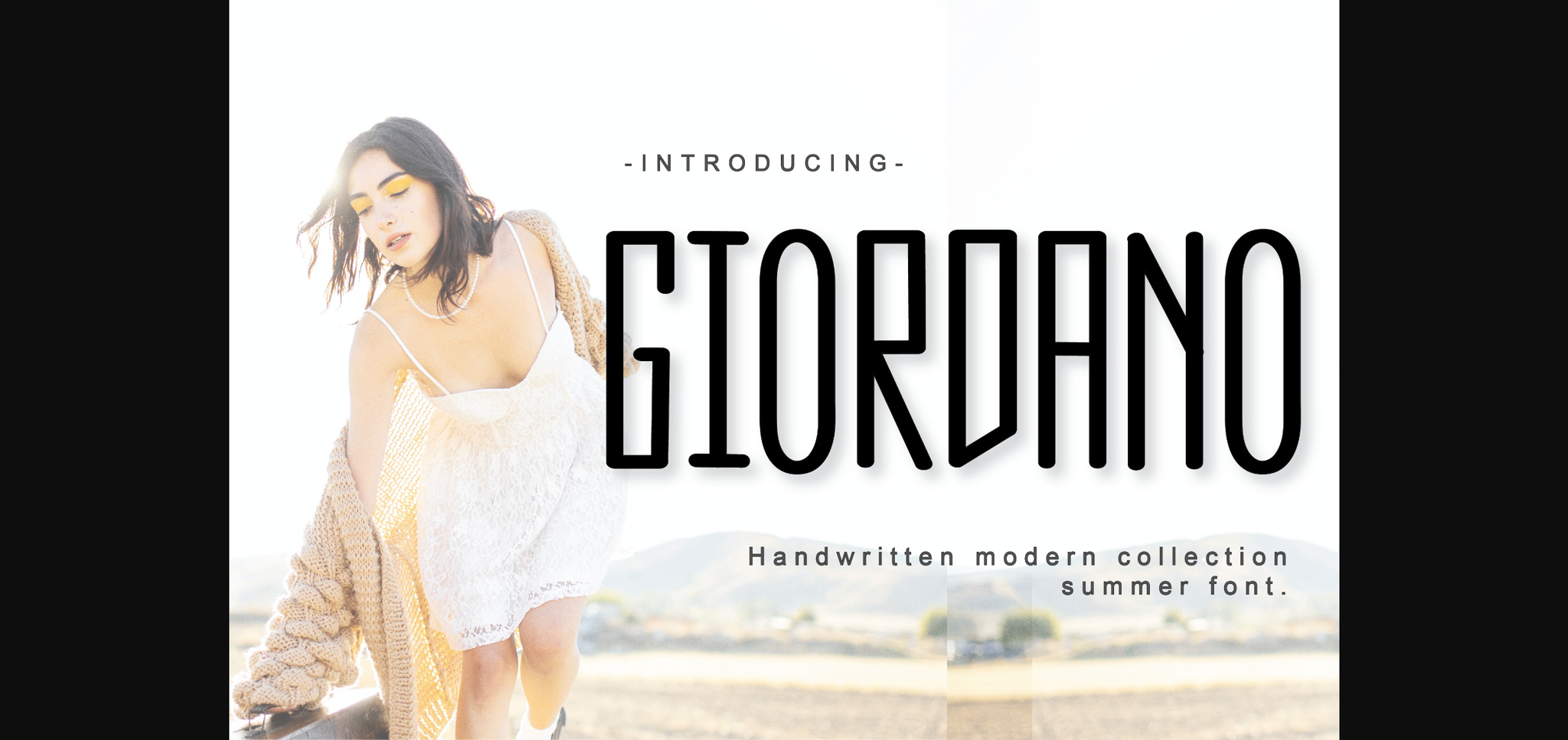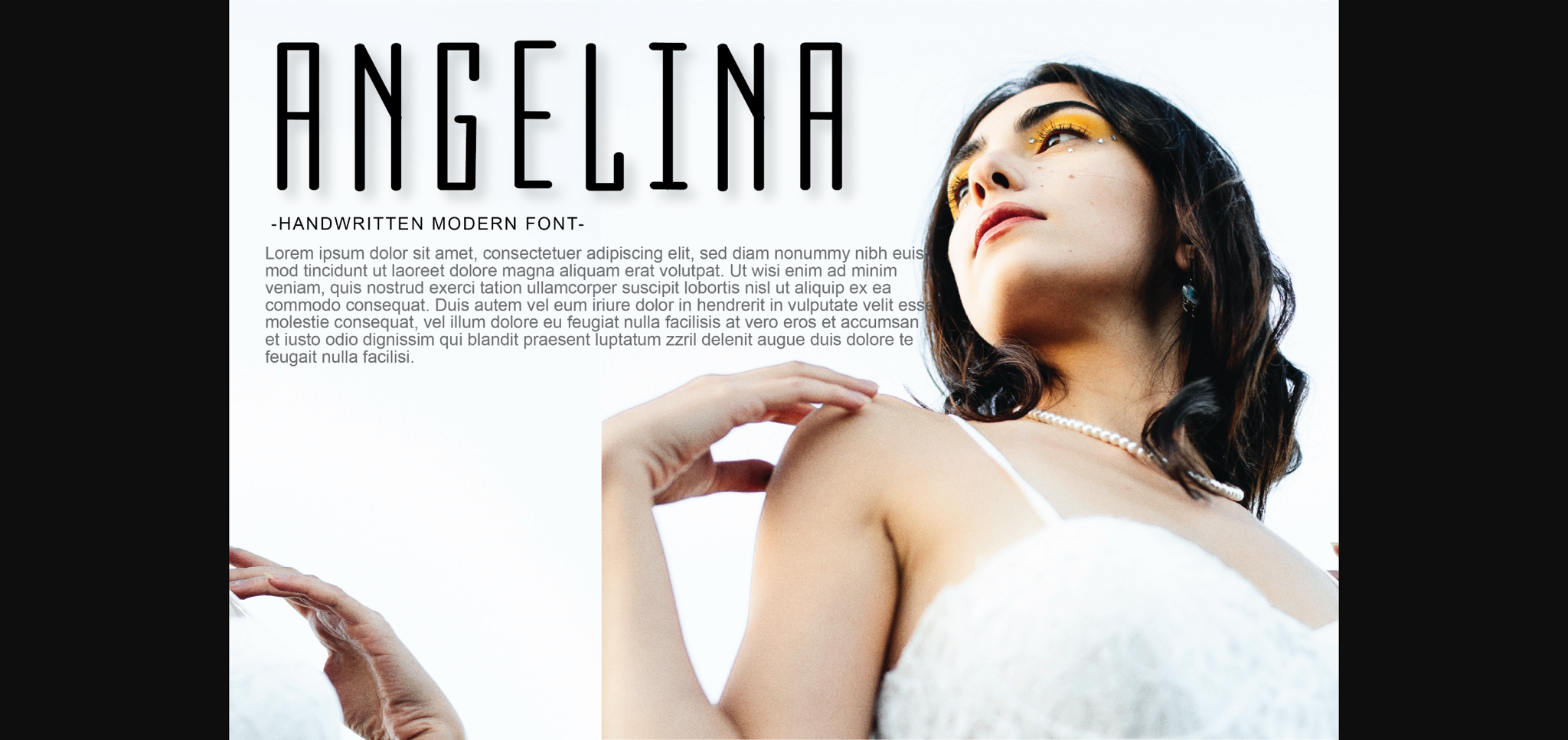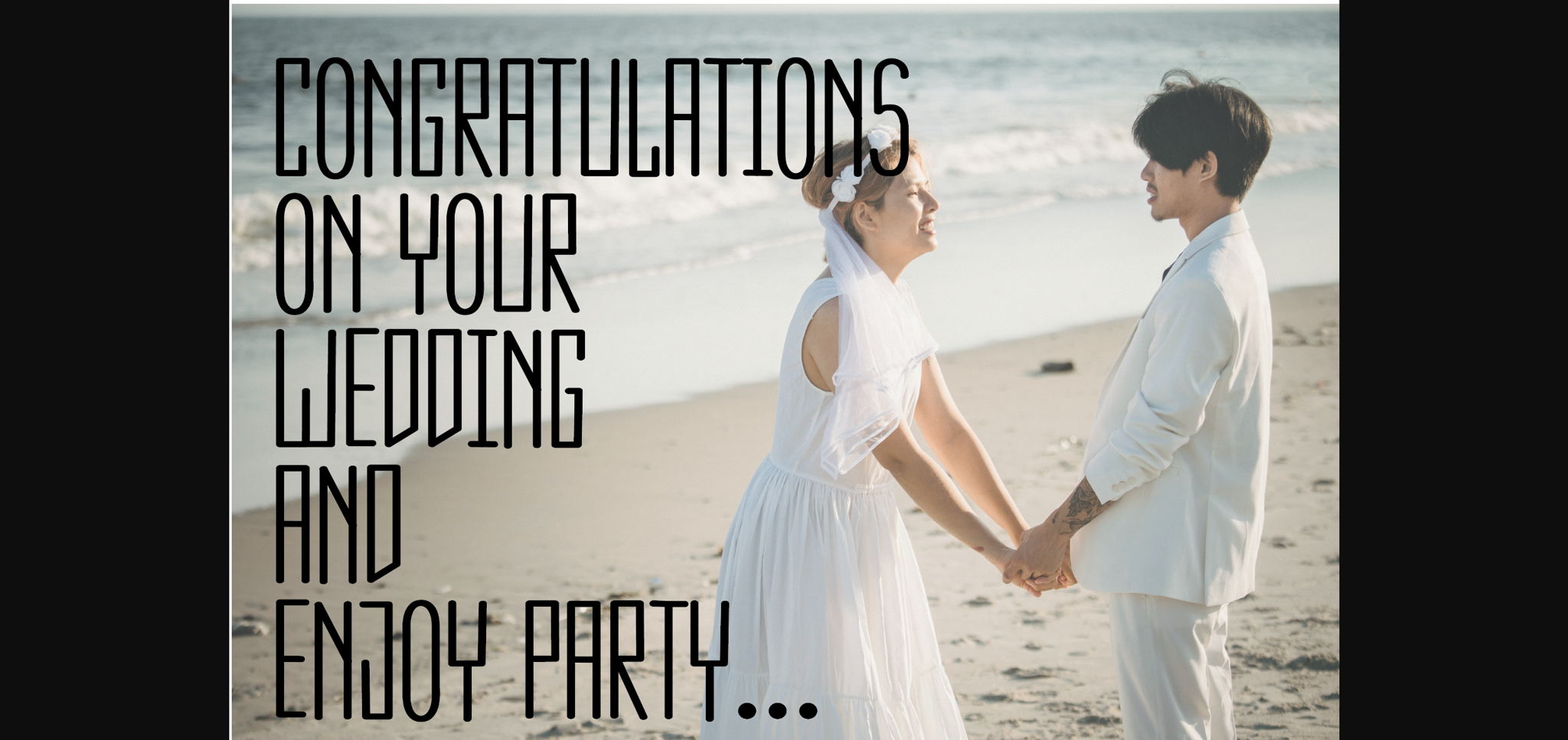
About Giordano Font
Giordano is a very elegant typeface designed to achieve a luxurious aspect. It can be used wonderfully for packaging designs, fashion themes, fragrance designs, cosmetic designs, social posts, etc. Use it with confidence in your creations, and you will see amazing results.